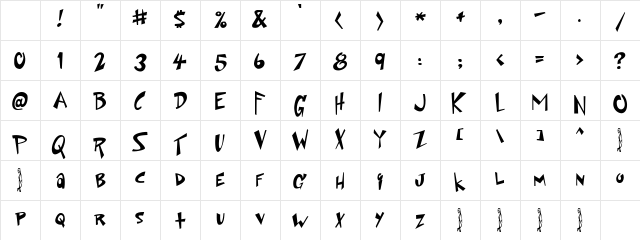
Complete Space Up Yer Life Regular glyph index. Displaying only characters natively supported by Space Up Yer Life Regular font.
Space Up Yer Life is a composed and adaptable typeface that performs quietly and consistently across a wide range of design contexts.